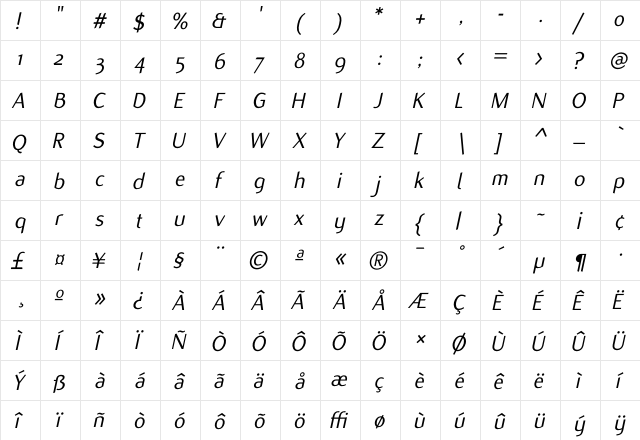
Flux Italic
Design Context for Flux Typeface
Flux takes a measured approach to typography — its balanced proportions and neutral character make it a reliable workhorse for both digital and print work. The dynamic lean of this cut emphasises speed and emphasis in any layout.
Pro Tip: Use Flux for emphasis, pull quotes, and subheadings where its slanted energy can add rhythm to the layout.